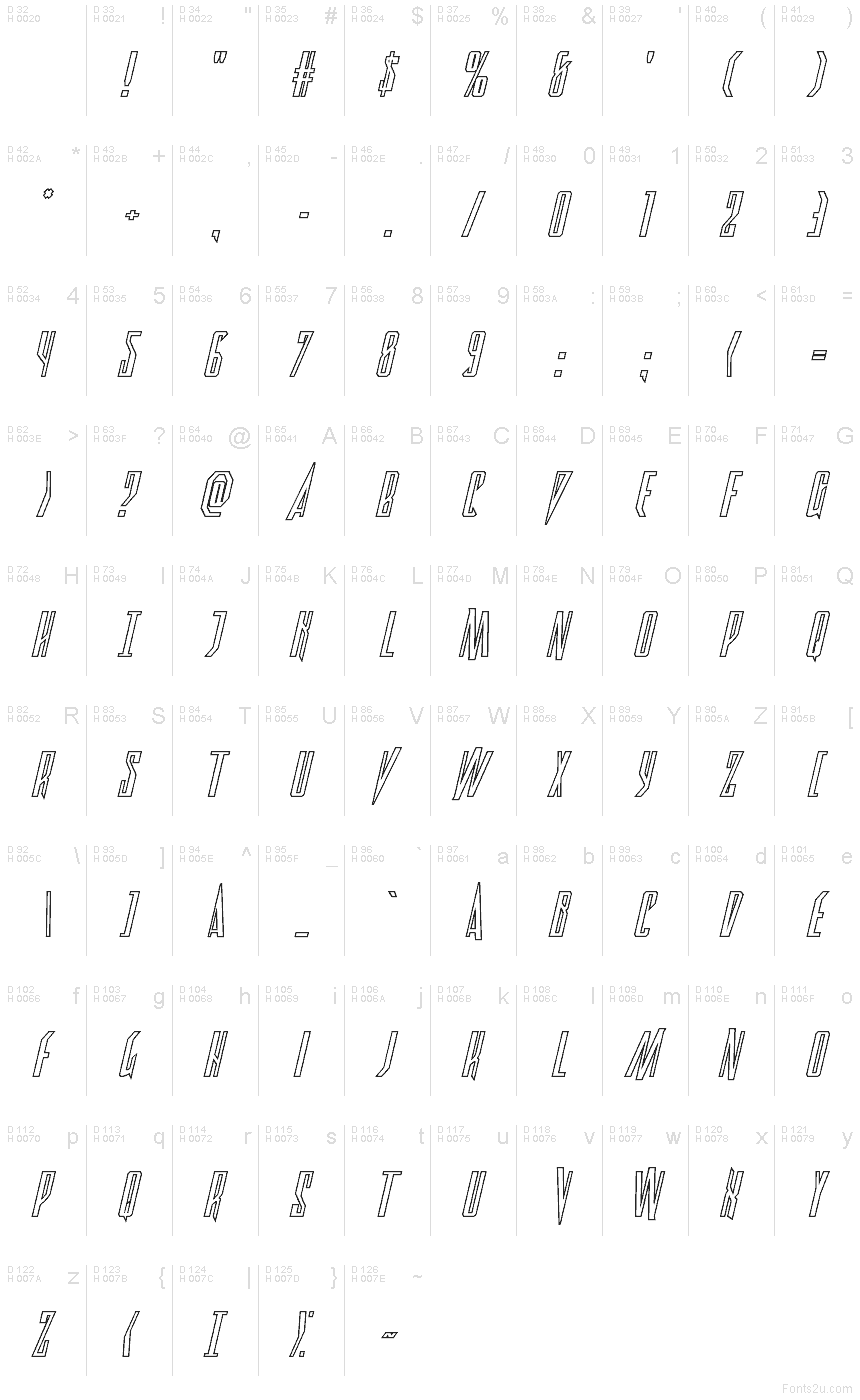
Archnemesis Outline Italic
Archnemesis Outline Italic font by Iconian Fonts is a free sci‑fi outline display typeface from the Archnemesis family. Its razor‑edged diagonals and forward‑leaning stance feel like speed lines frozen in metal, while the hollow strokes keep the forms light, crisp, and shockingly legible at impact sizes. The condensed build stacks letters into a tight, kinetic wordmark, giving headlines a wireframe, futuristic snap without heavy ink.
Using Archnemesis Outline Italic, you get instant drama for esports logos, tech posters, movie titles, comic covers, game splash screens, and YouTube thumbnails. The outline structure invites neon glows, gradients, or chrome textures, and the steady rhythm makes short phrases read fast. Set it large with slightly generous tracking, and pair this free font with a plain geometric sans for body copy to keep the spotlight on its sleek, angled silhouette.